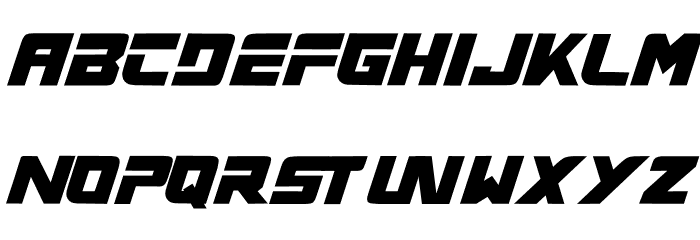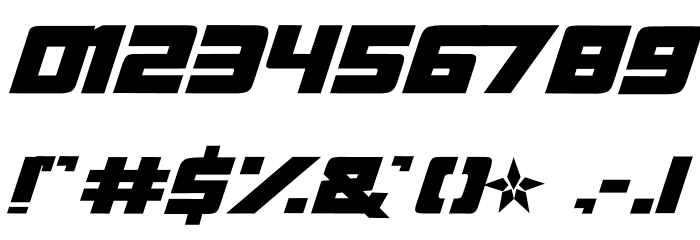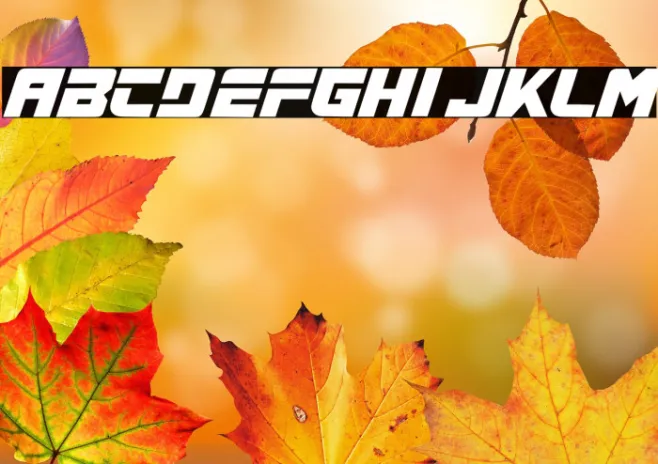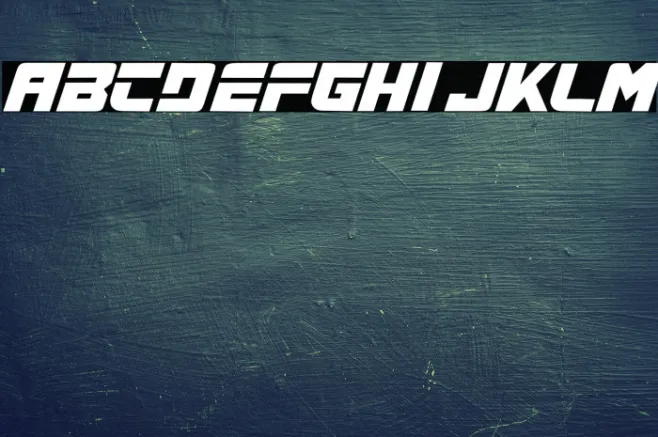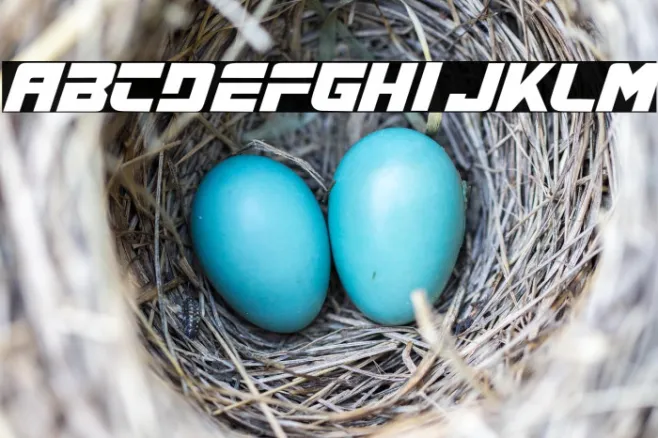
STAR7 Font
This font features a bold, futuristic design with a strong emphasis on angular lines and geometric shapes. The characters are slanted, giving a sense of motion and speed, reminiscent of sci-fi and technology themes. The uppercase letters are particularly striking, with sharp edges and a dynamic stance. The numbers and special characters maintain this aesthetic, ensuring a cohesive look across all glyphs. The font's boldness and unique style make it stand out, perfect for projects that require a modern and edgy appearance.
A bold, futuristic font with angular, slanted characters.
- Font: STAR7
- Proposed Projects: Ideal for sci-fi themed posters, technology branding, video game titles, and futuristic event flyers.
- Overall Style: Futuristic